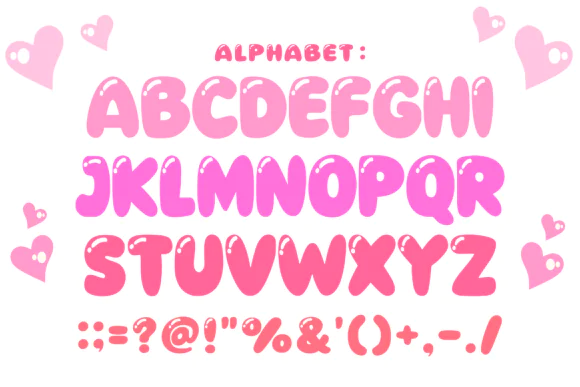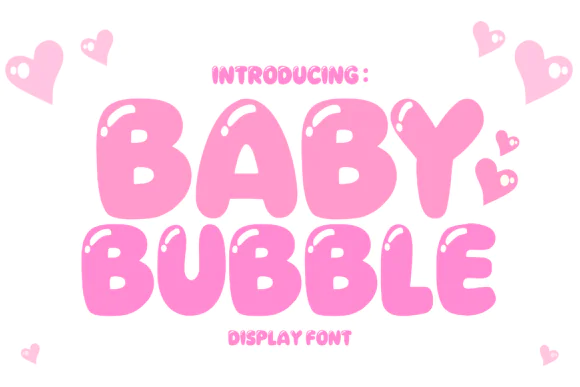
Create bright, cheerful, and friendly designs with Cute Bubble Font, a fun rounded typeface designed to bring warmth, joy, and playful personality to your creative projects. With its soft rounded corners and expressive bubble-style letterforms, this font is perfect for designs that need a cute, happy, and approachable look.
Cute Bubble Font works beautifully for social media graphics, invitations, comics, web designs, digital artwork, greeting cards, stickers, posters, kids’ designs, party graphics, product labels, packaging, YouTube thumbnails, classroom materials, and playful branding projects. Its cheerful and affectionate style helps your text feel more engaging, colorful, and full of life.
Whether you are creating a fun Instagram post, a children’s invitation, a comic-style title, a cute website banner, or a playful sticker design, Cute Bubble Font adds charm and joy to your artwork while keeping your message visually attractive and easy to enjoy.